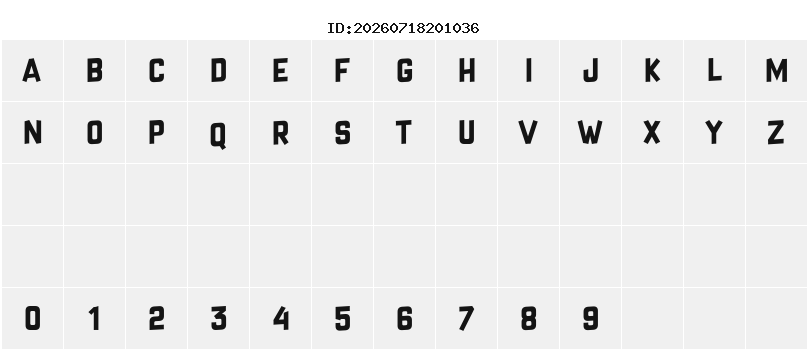
• Font Name: Crazy Sixties
• Designer: IMAGEX
About Crazy Sixties.ttf
Crazy Sixties.ttf is a modern, elegant sans-serif font designed for ultimate readability and visual harmony. Perfect for branding, headlines, web design, and print materials.